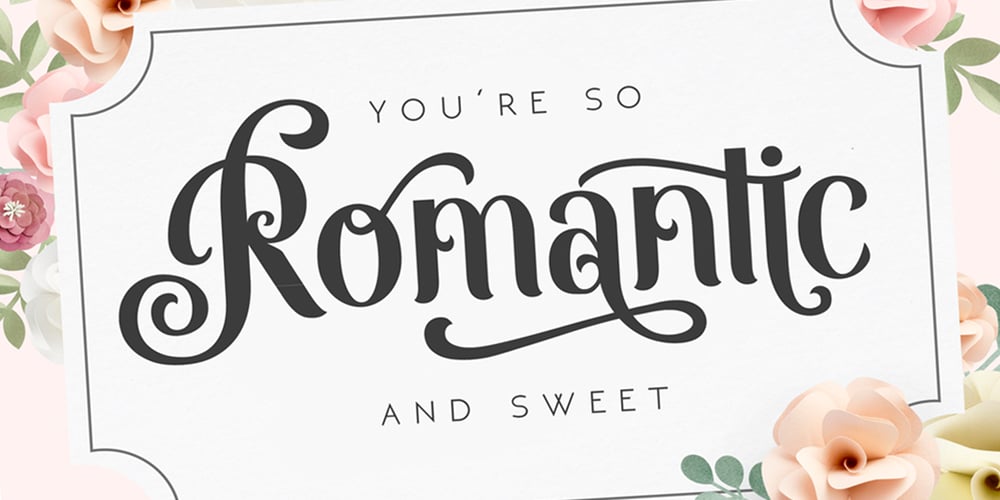
Monabelia Font Family was designed by Ahmad Ramzi Fahruddin and published by Arterfak Project. Monabelia contains 2 styles and family package options. Greetings. Introducing our new font “Monabelia”. The elegant playfully font which made with a combination of sans serif and brush script style. Almost all of the letters have sans serif taste at the top and script taste at the bottom of the shapes, also the tails/flourishing. You can feel the freestyle with combine the stylistic, contextual alternate and the ligatures but still elegant with the neat layout of the shapes. There are 100+ additional glyphs in this font that you can use it for your design, especially for your headline, display (recommended), subheadline and quotes!